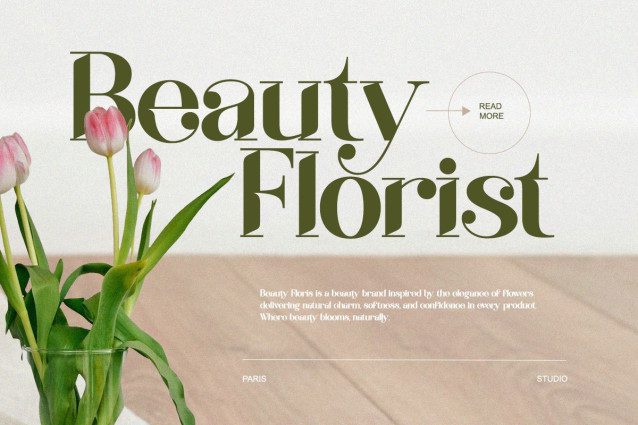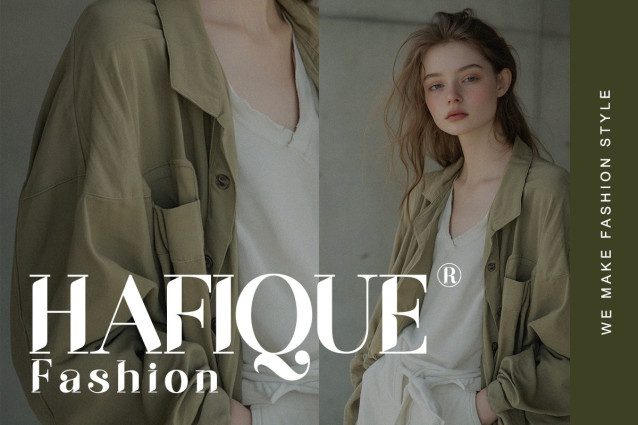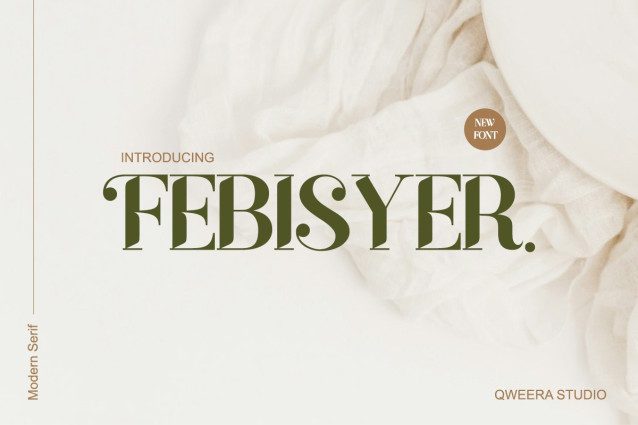
Febisyer Font
Febisyer Font a bold yet elegant typeface crafted to bring sophistication and strength into your design projects. With its unique serif details and contemporary structure, Febisyer strikes the perfect balance between modern aesthetics and timeless typography traditions.
Designed with versatility in mind, Febisyer is ideal for logos, editorial layouts, product packaging, fashion campaigns, and creative branding. Its stylish serifs and confident letterforms make it stand out in headlines, while maintaining a sleek and professional readability for longer text.
With alternates, stylistic sets, and multilingual support, Febisyer gives you the flexibility to create unique typographic compositions. Whether you’re working on branding identity, luxury packaging, or lifestyle projects, this font will add a powerful yet refined character to your work.